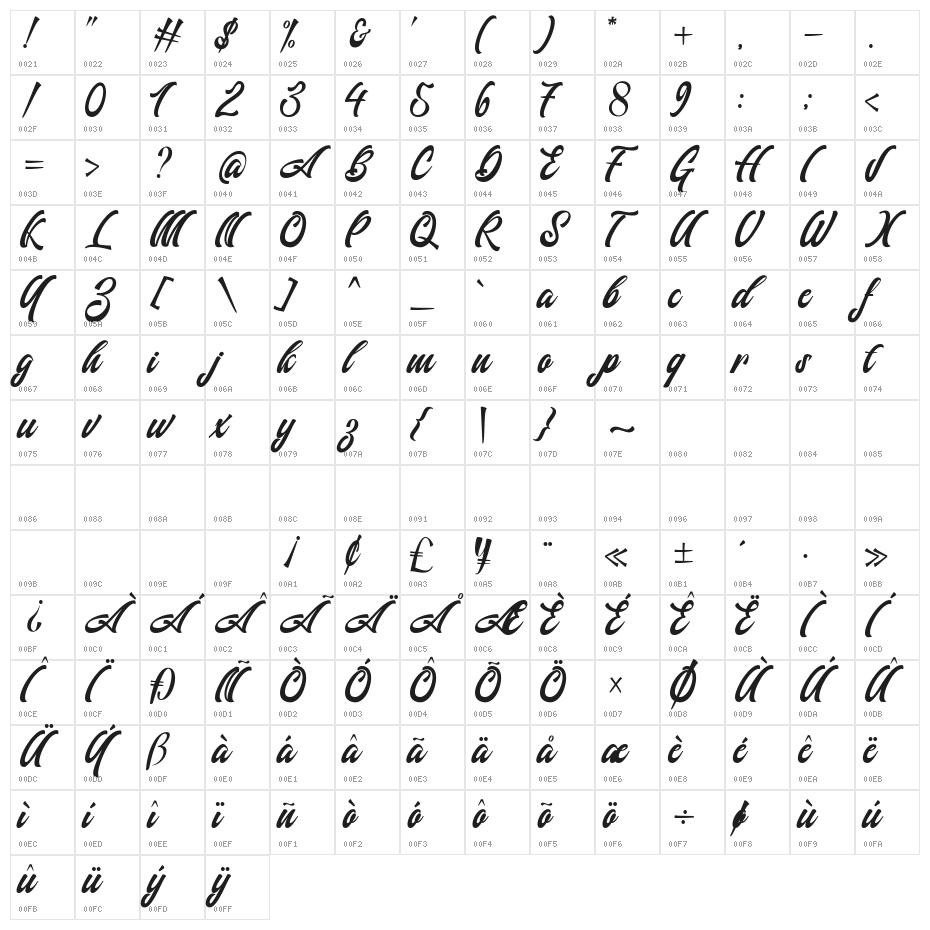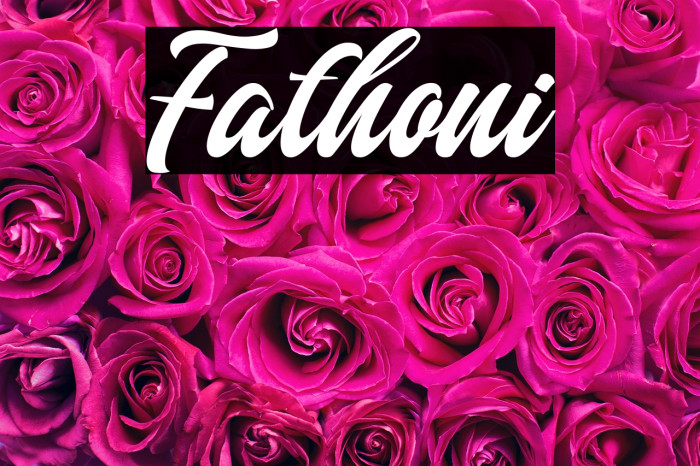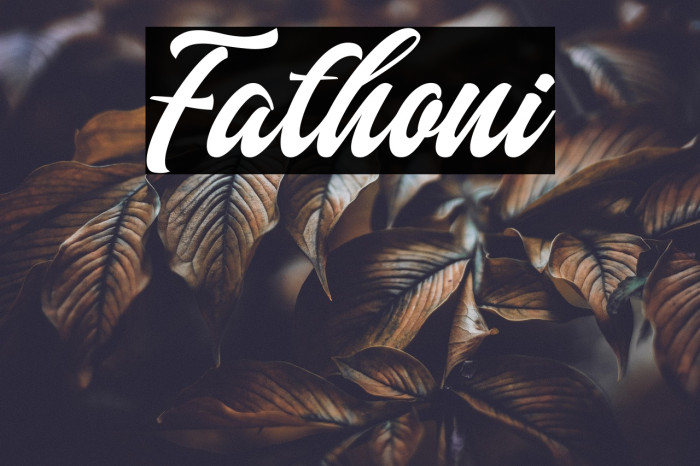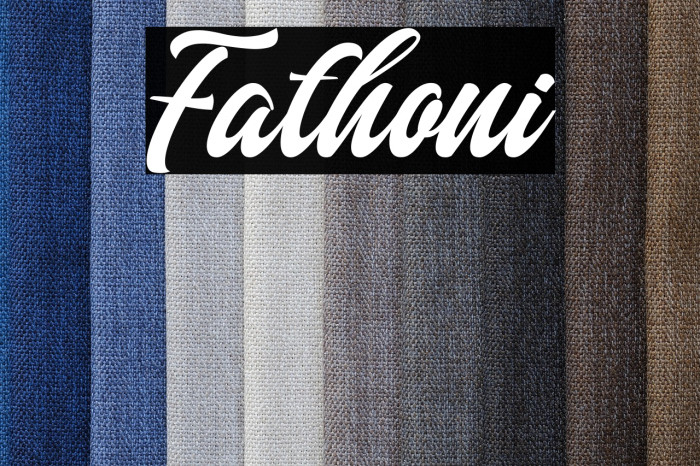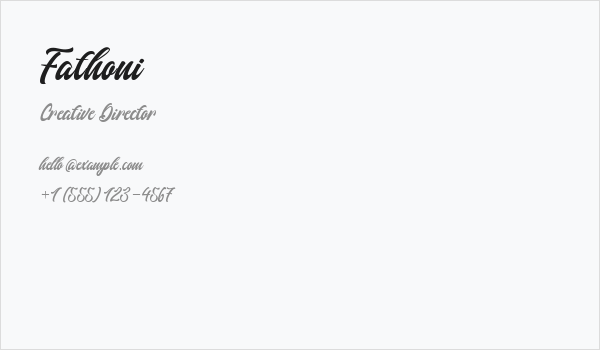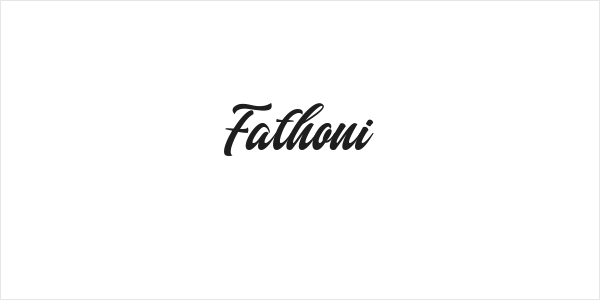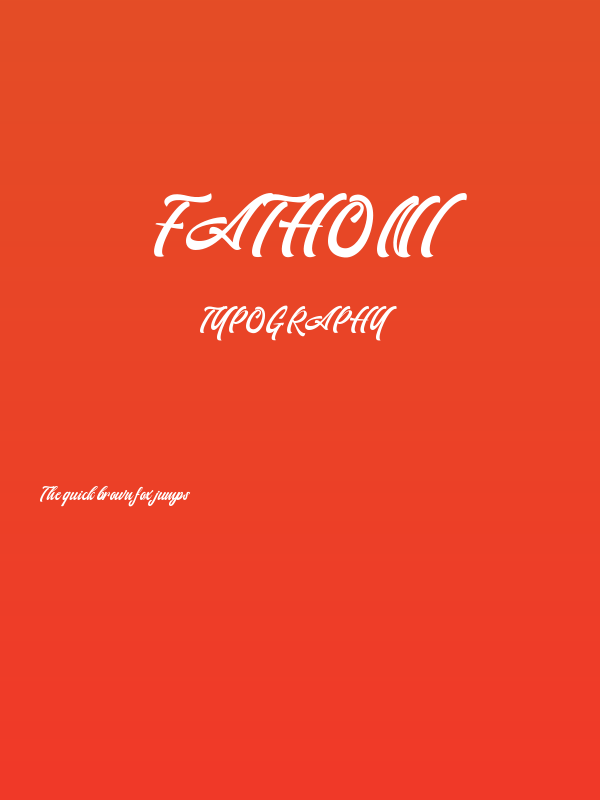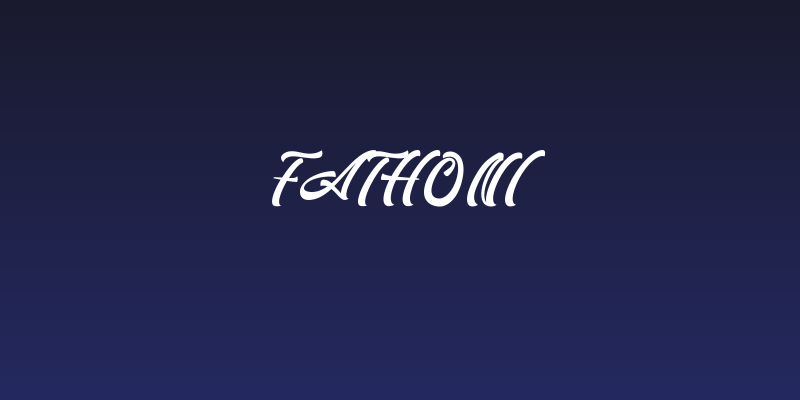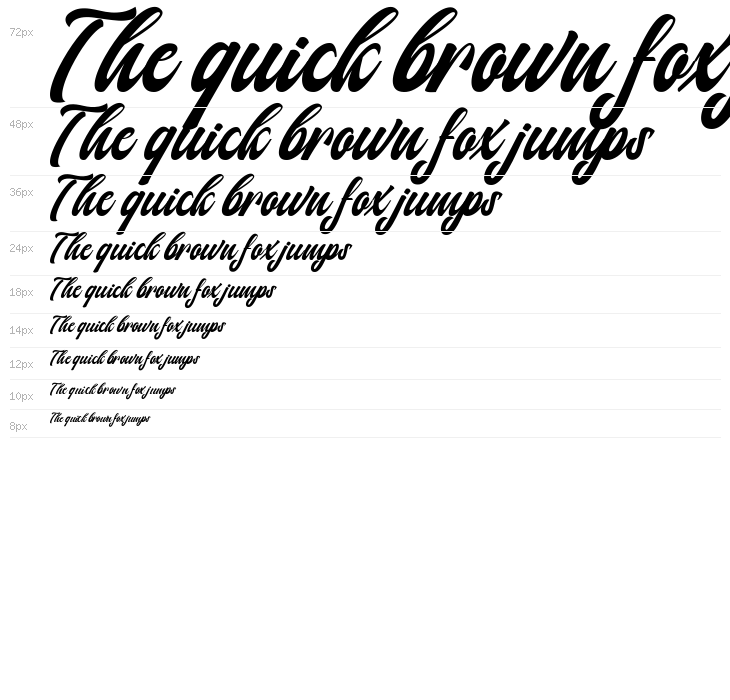
Fathoni Font
Fathoni Description
This font showcases a bold and expressive script style, characterized by its flowing, cursive letterforms. Each character is crafted with a sense of movement and elegance, featuring smooth curves and a consistent stroke width that enhances its readability. The uppercase letters are particularly ornate, with flourishes that add a touch of sophistication. The lowercase letters maintain a cohesive style, ensuring a harmonious appearance in text. Numbers and special characters are designed to match the overall aesthetic, making this font versatile for various applications. Its bold presence makes it ideal for creating impactful designs.